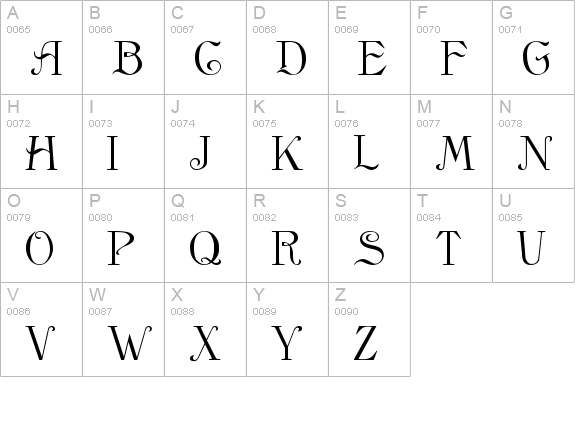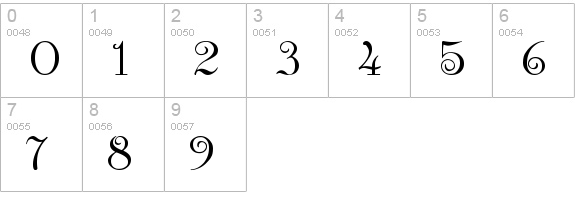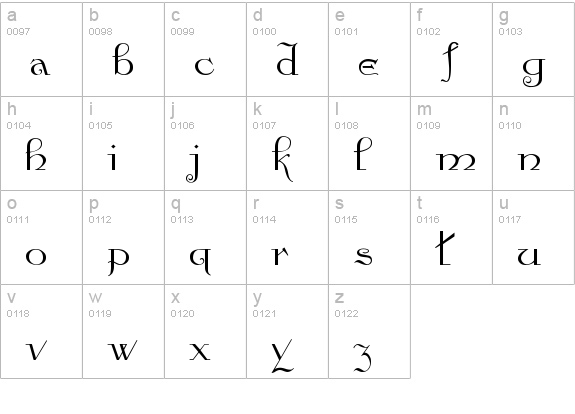
Galleon Font Details
Galleon font is a timeless and elegant typeface that exudes sophistication and class. Its sleek and stylish design makes it perfect for a wide range of projects, from branding to editorial design. The classic serifs and clean lines of Galleon font give it a professional and polished look that is sure to make your text stand out. What makes Galleon font even more appealing is that it is available for free download at FontsMarket.com. This means you can easily access this high-quality typeface without any cost, making it a valuable addition to your font collection. So whether you're working on a logo, website, or any other design project, Galleon font is a versatile and beautiful choice that will elevate your work to the next level. Download it today and see the difference it can make in your designs!